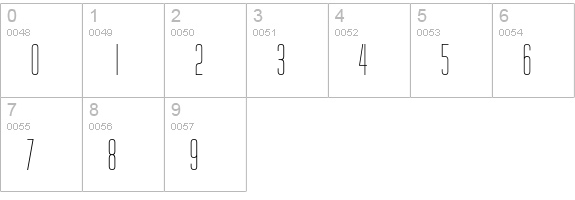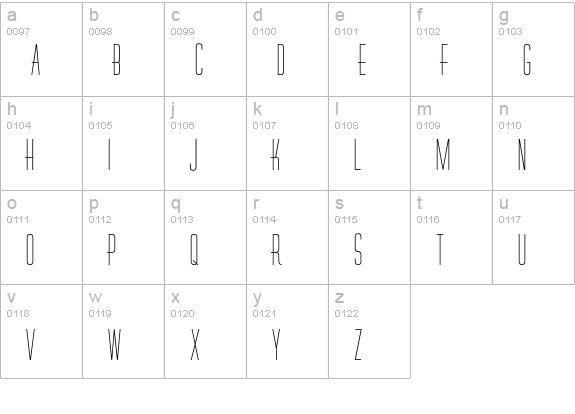
Sunset font is a stunning display typeface that captures the warmth and beauty of a picturesque sunset. With its elegant curves and playful flair, this font is perfect for adding a touch of whimsy to your design projects. Whether you're creating invitations, posters, or branding materials, Sunset font will bring a touch of magic to your work. Best of all, Sunset font is completely free to download at FontsMarket.com. So you can add this unique and eye-catching font to your collection without breaking the bank. Don't miss out on the opportunity to enhance your designs with the enchanting Sunset font – download it today and let your creativity shine!